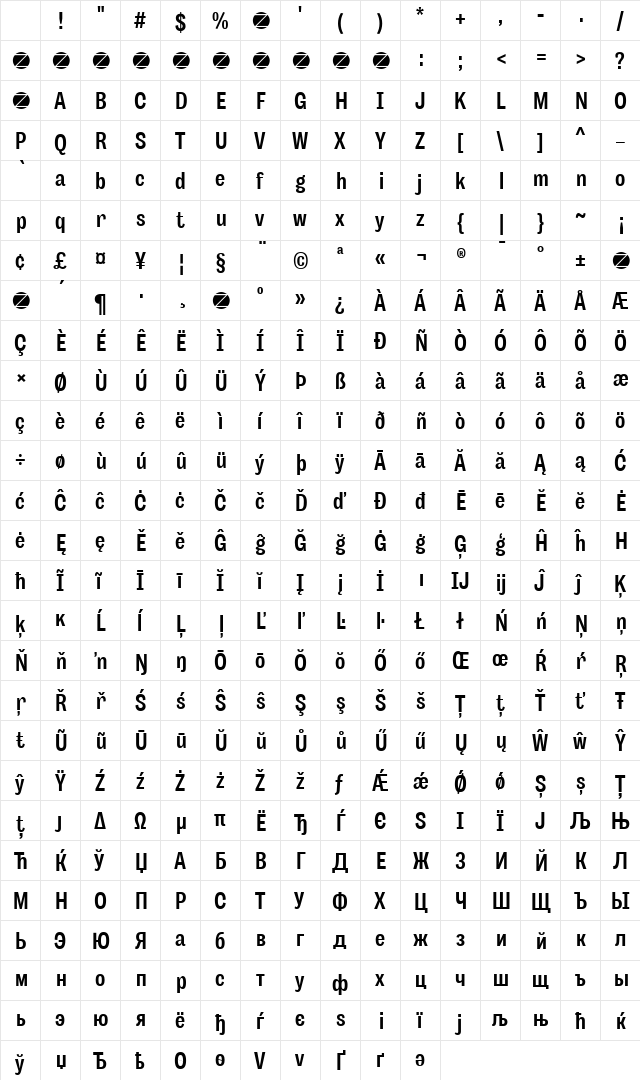
Complete Body Grotesque Slim Bold glyph index. Displaying only characters natively supported by Body Grotesque Slim Bold font.
Body Grotesque Slim is a composed and adaptable typeface that performs quietly and consistently across a wide range of design contexts. Its bold stroke weight gives it real presence on the page.